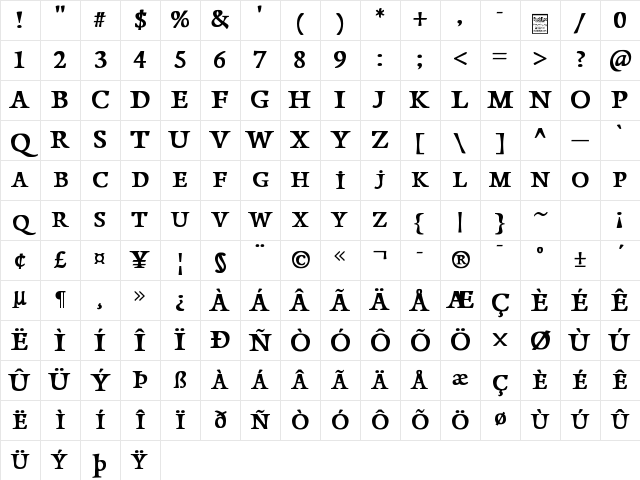
Papillons Regular
Foundry: StudioTypo
Design Context for Papillons
Papillons is a composed and adaptable typeface that performs quietly and consistently across a wide range of design contexts.